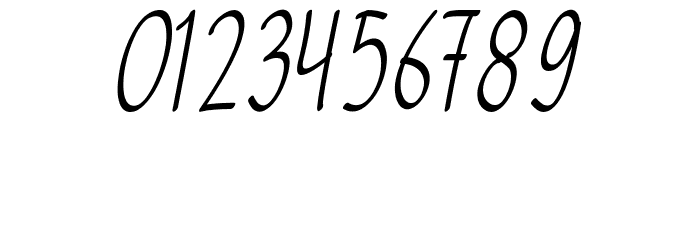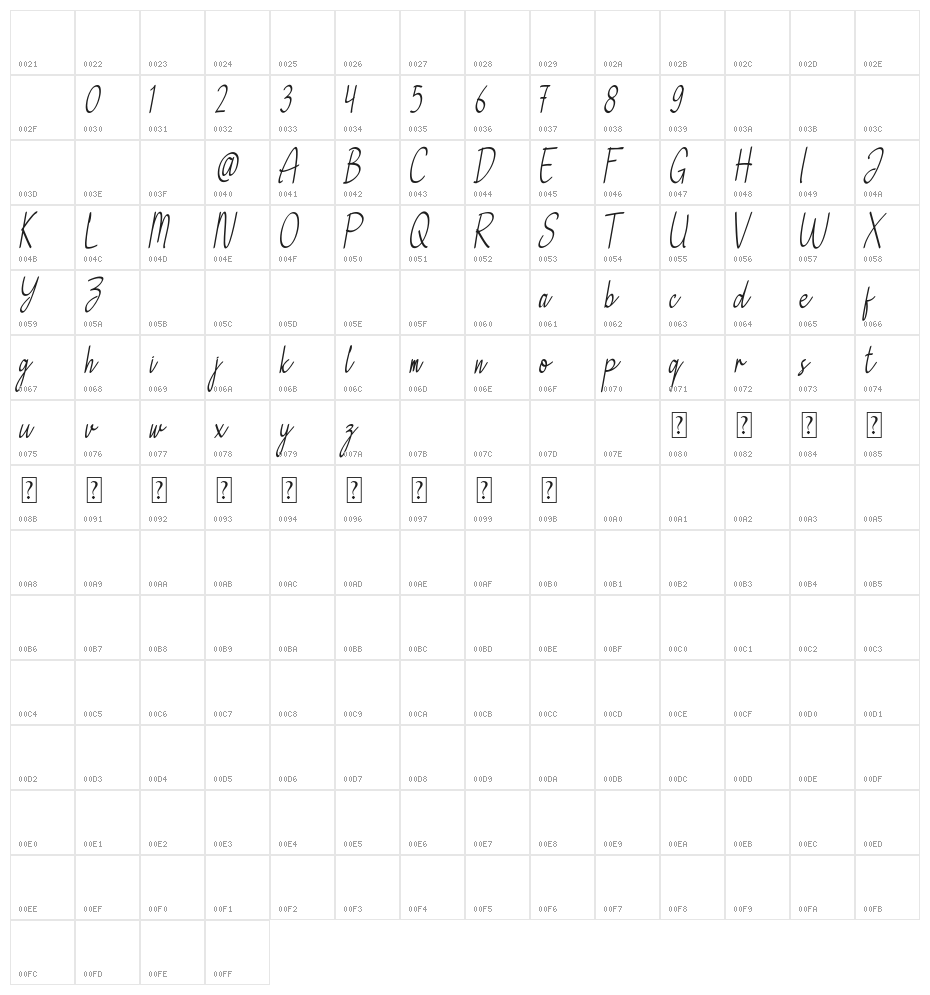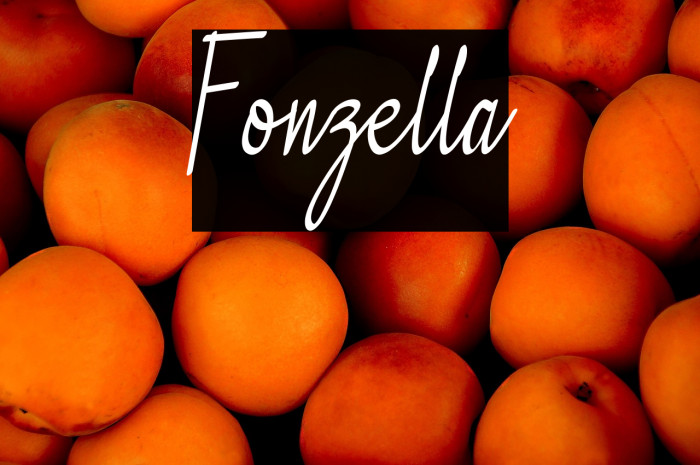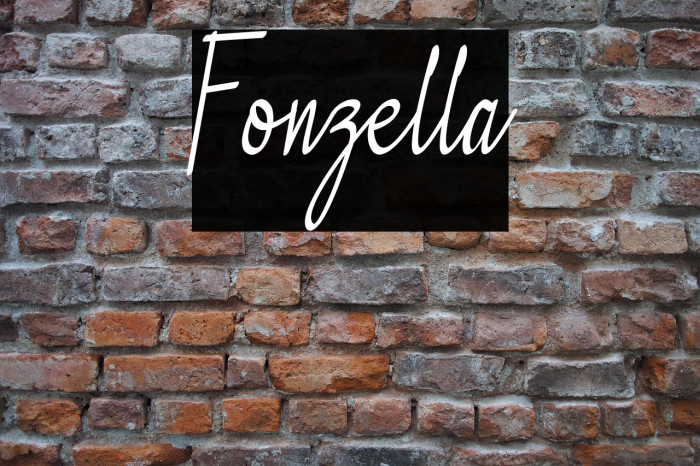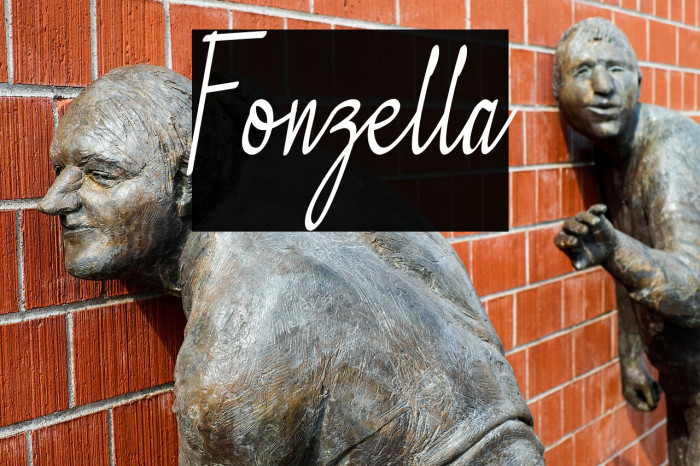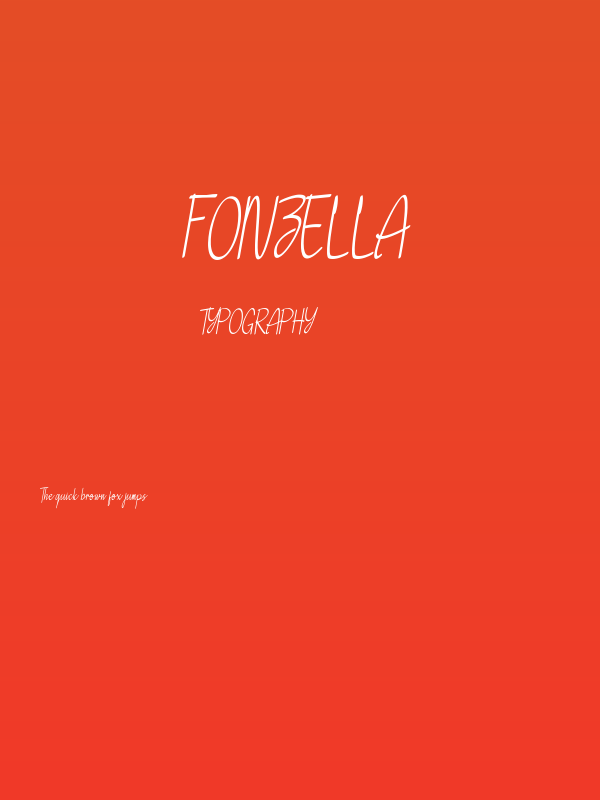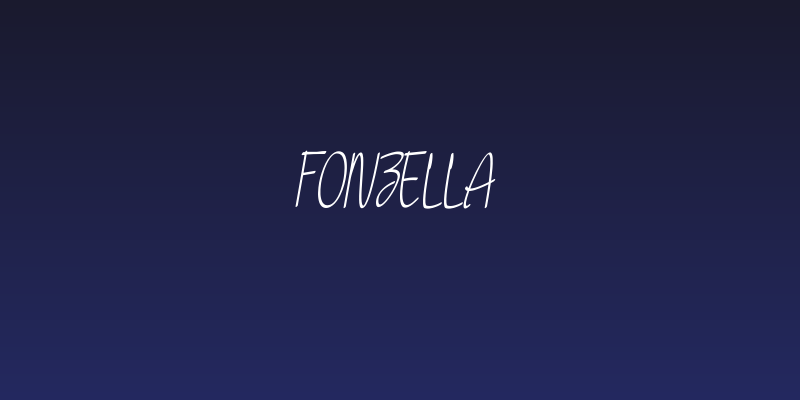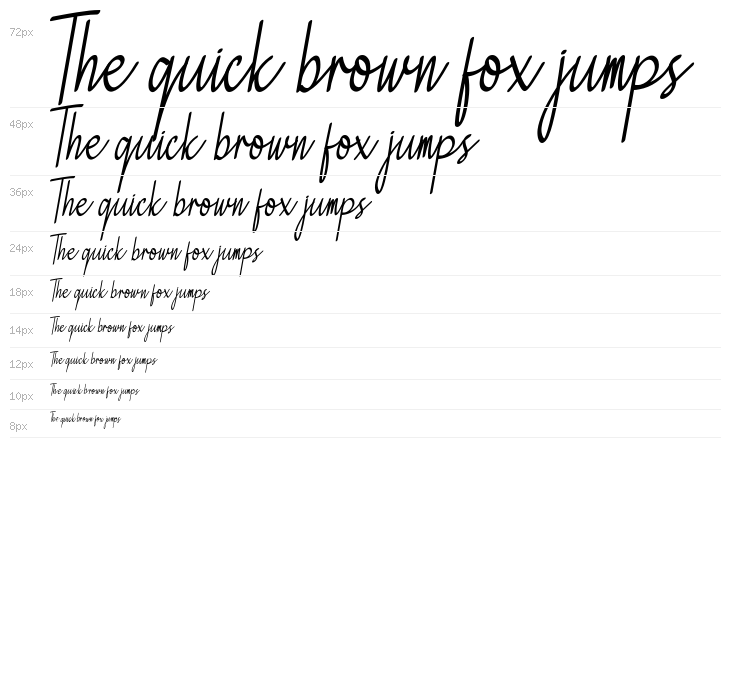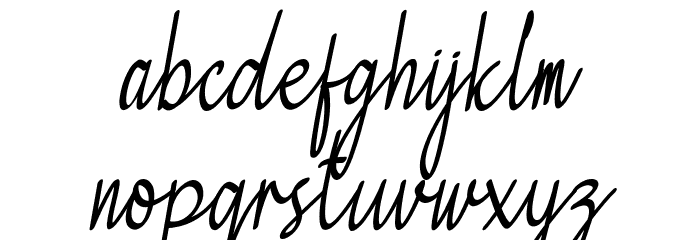
Fonzella Font
Fonzella Description
This font features an elegant and flowing script style, characterized by its smooth, continuous strokes and slightly slanted letters. The uppercase letters are tall and slender, with a graceful, elongated appearance, while the lowercase letters maintain a consistent flow, enhancing the font's overall fluidity. The numerals are designed to complement the letters, maintaining the same elegant and cursive style. The special characters blend seamlessly with the alphabet, ensuring a cohesive look across all text. This font exudes a sense of sophistication and charm, making it suitable for a variety of creative applications.
| Overall Style | Elegant, Sophisticated |
| Proposed Projects | Ideal for wedding invitations, elegant branding, greeting cards, and artistic projects. |